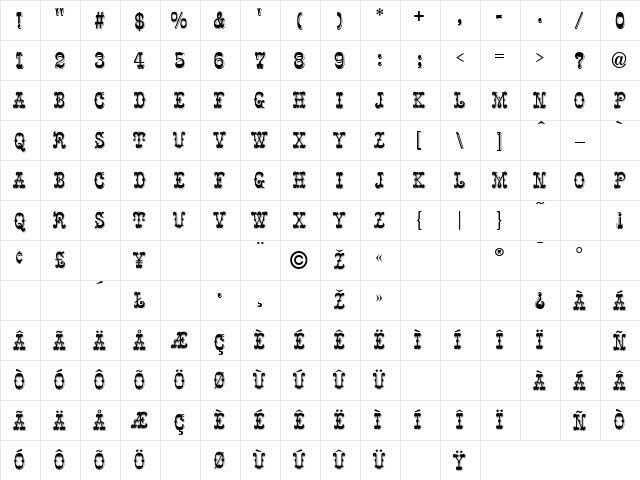
Ringmaster Normal Free Font
Ringmaster Normal
Ringmaster Family
Design Context for Ringmaster
Ringmaster is a composed and adaptable typeface that performs quietly and consistently across a wide range of design contexts.